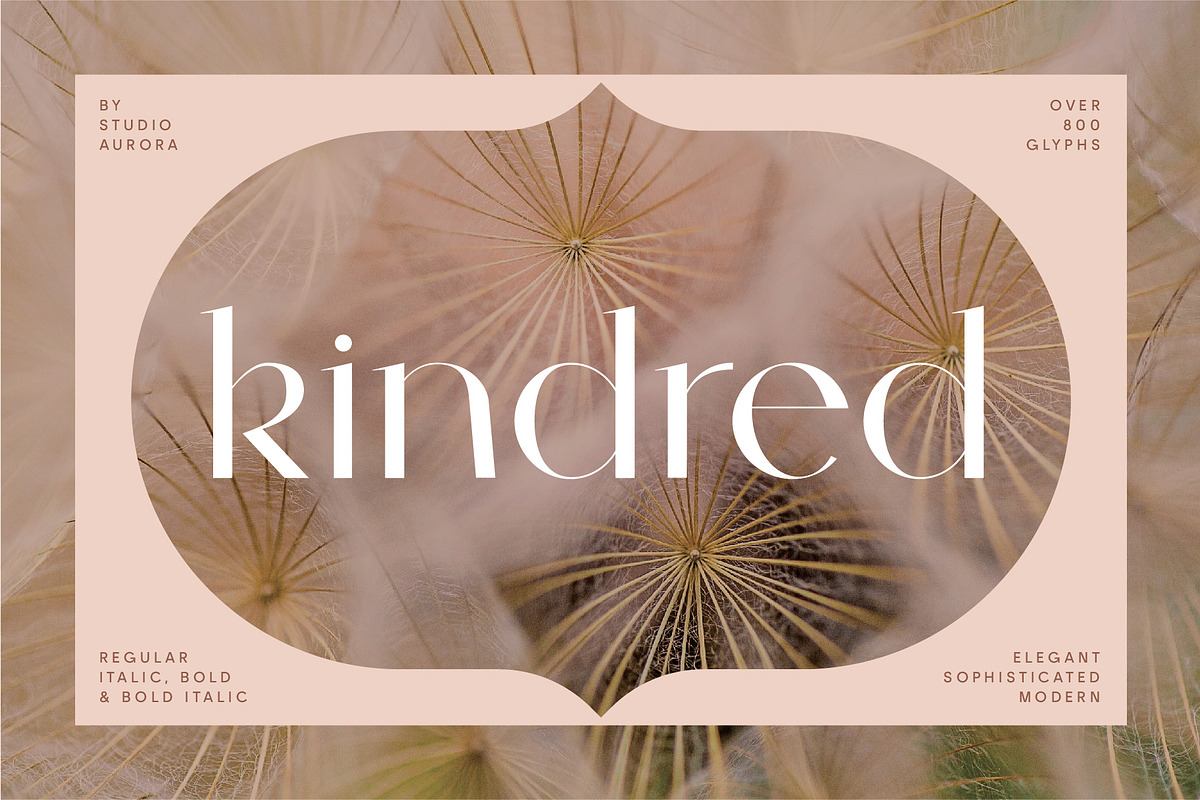
Kindred - Elegant and Chic Font Free Download is a sophisticated serif typeface designed to evoke a sense of luxury, refinement, and timeless elegance. With its delicate curves, sharp serifs, and modern style, Kindred is perfect for high-end branding, fashion design, wedding invitations, editorial layouts, and upscale packaging.
This font brings a balance of modern simplicity and classic beauty, making it versatile for both display use and body text. Whether you're designing a logo, a chic editorial spread, or a stylish event invitation, Kindred will give your work an unmistakable touch of grace.